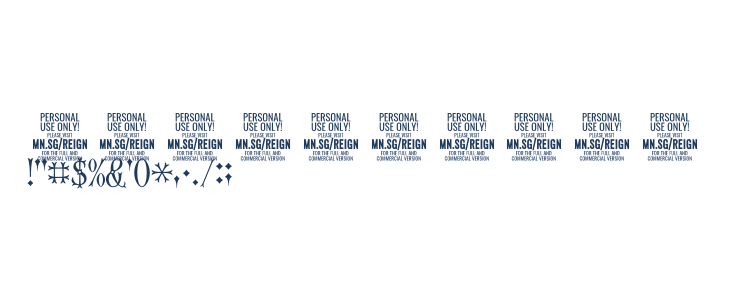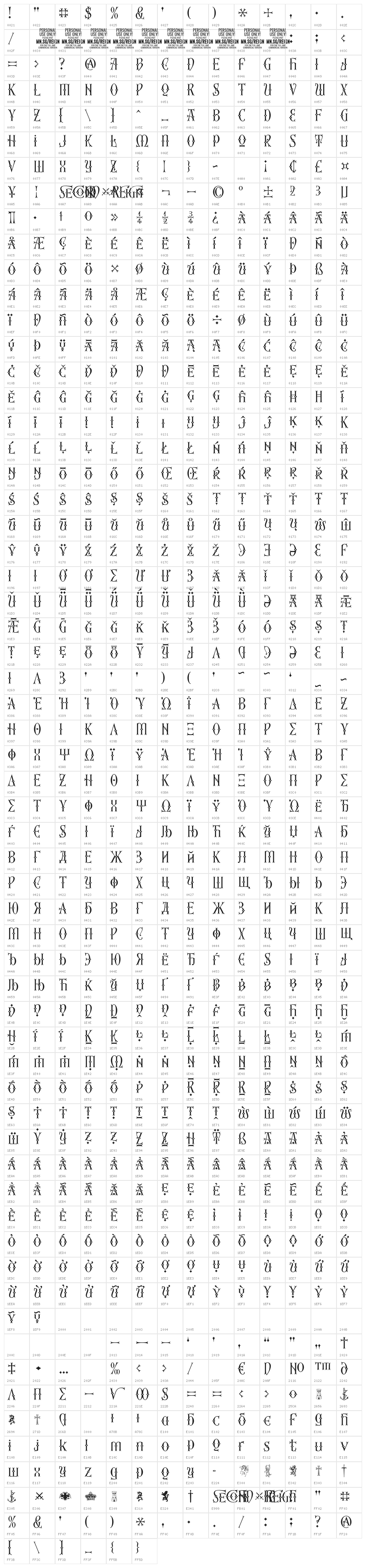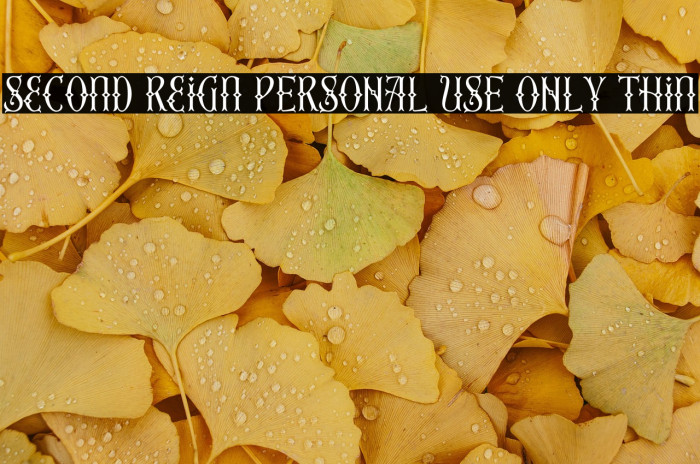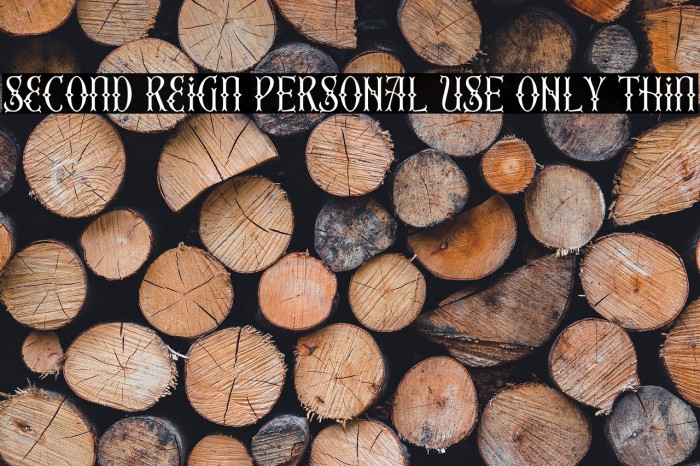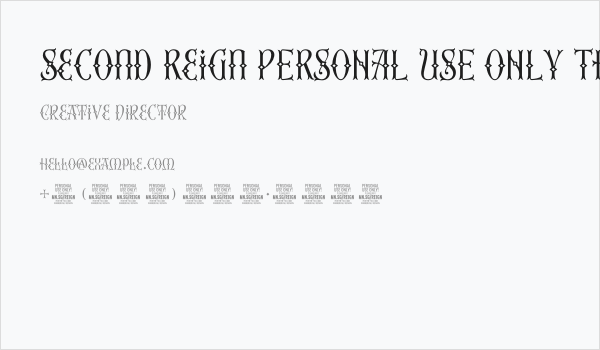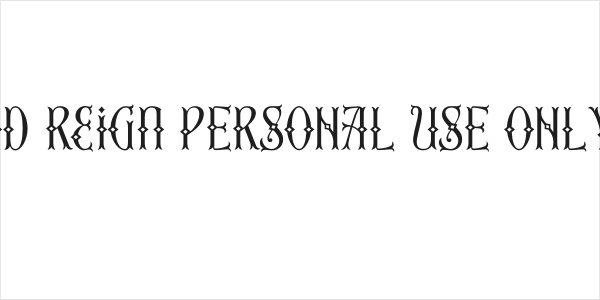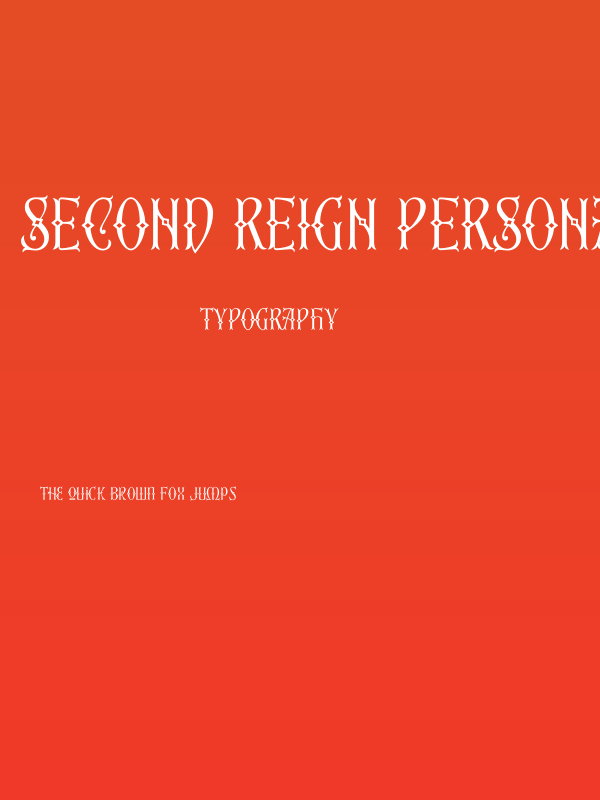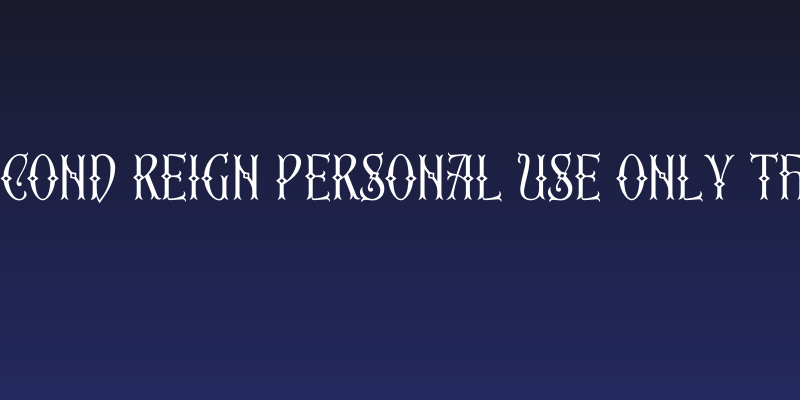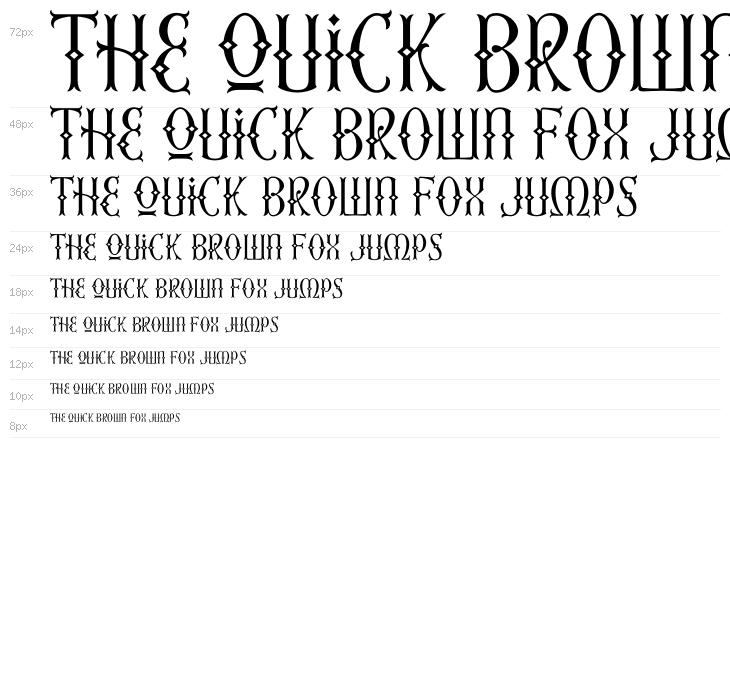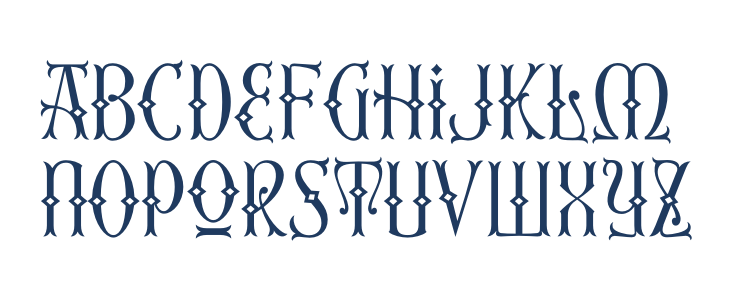
Second Reign PERSONAL USE ONLY Thin Font
Second Reign PERSONAL USE ONLY Thin Description
This font exhibits a striking and intricate design, characterized by its sharp, angular lines and decorative elements that evoke a sense of medieval or gothic style. The uppercase and lowercase letters are adorned with unique embellishments, giving each character a distinct and ornate appearance. The font maintains a consistent thin weight throughout, enhancing its elegant and sophisticated look. The special characters are equally elaborate, featuring similar stylistic details that complement the overall aesthetic. This font is ideal for projects that require a dramatic and historical touch.
| Proposed Projects | Ideal for historical-themed designs, gothic art projects, book covers, and decorative invitations. |